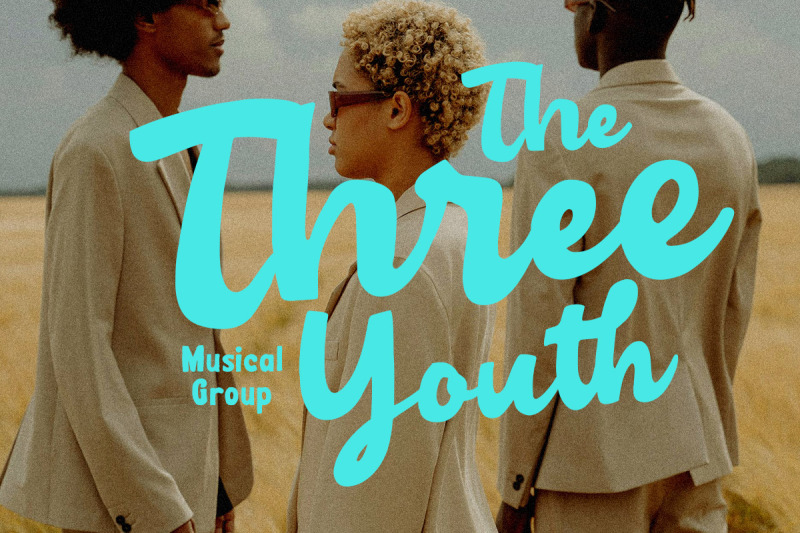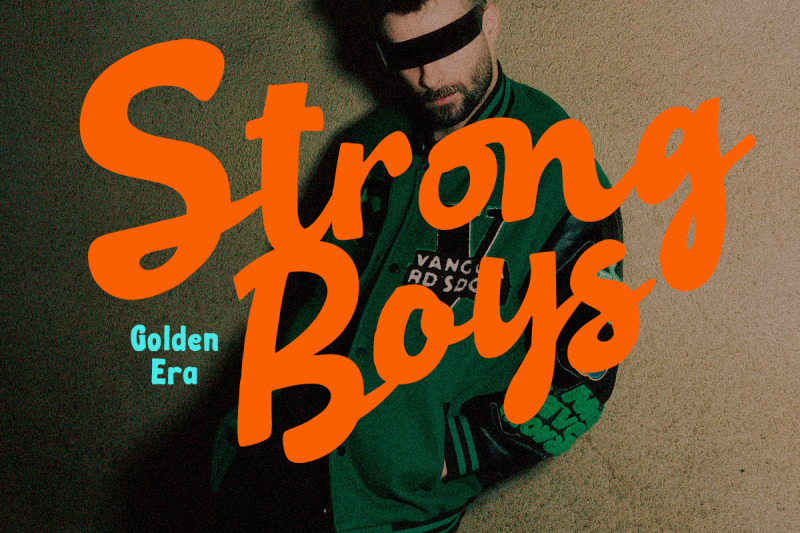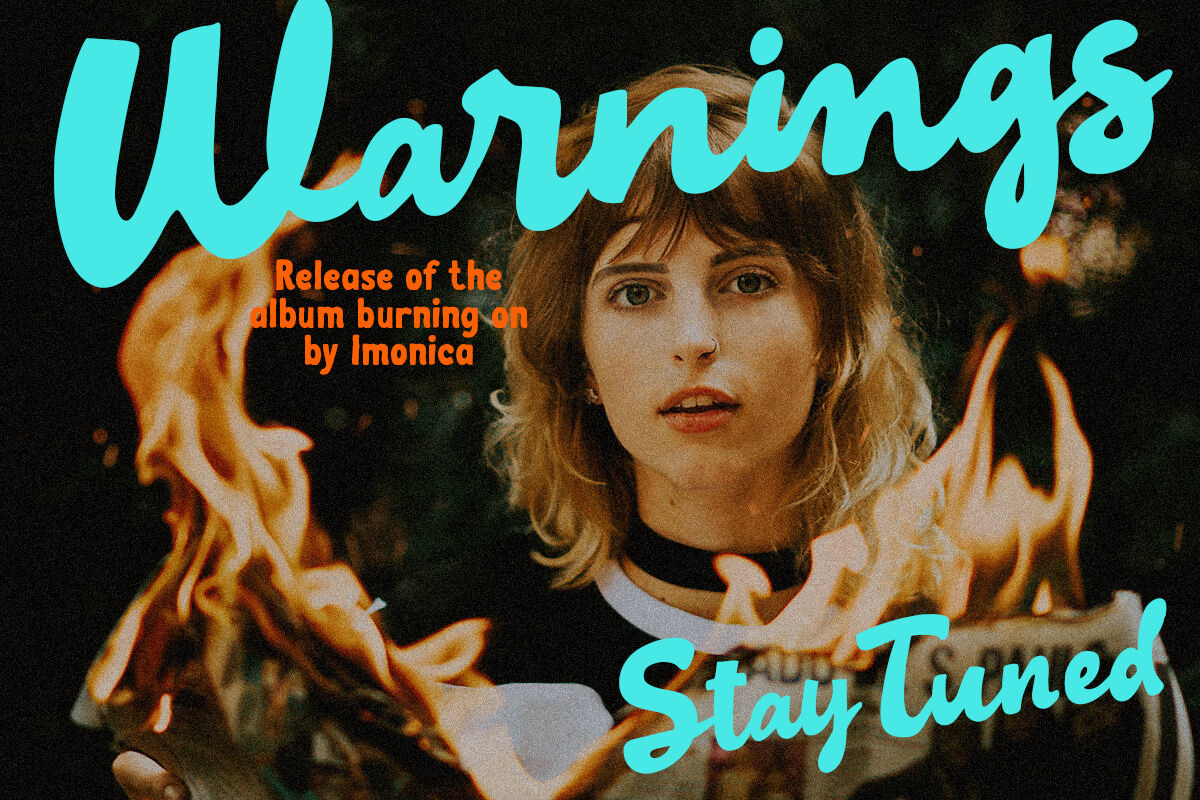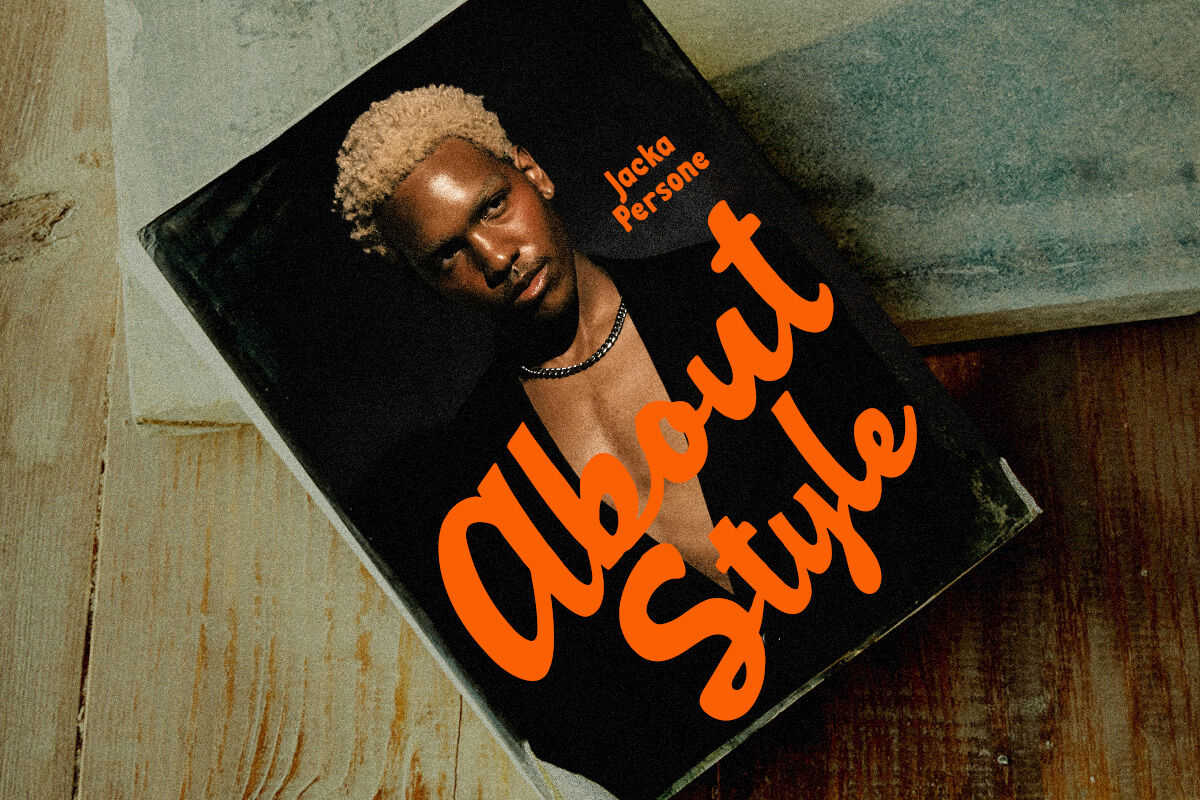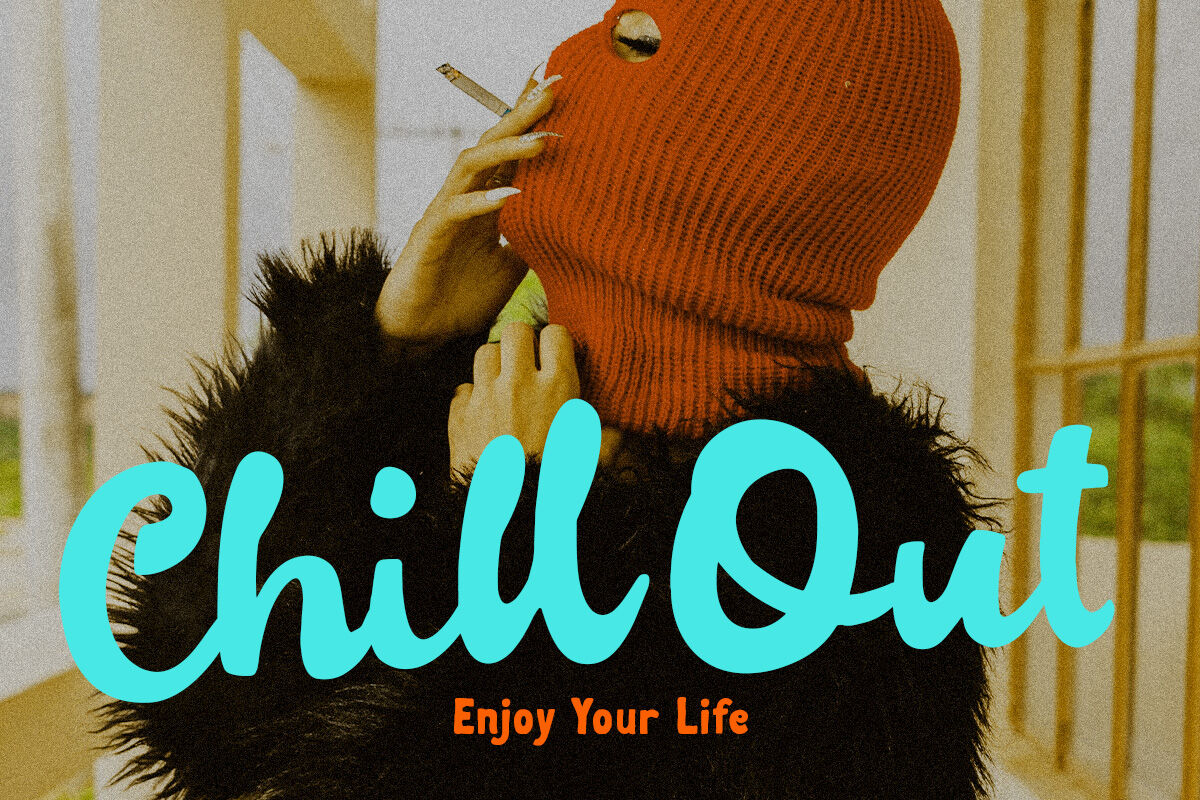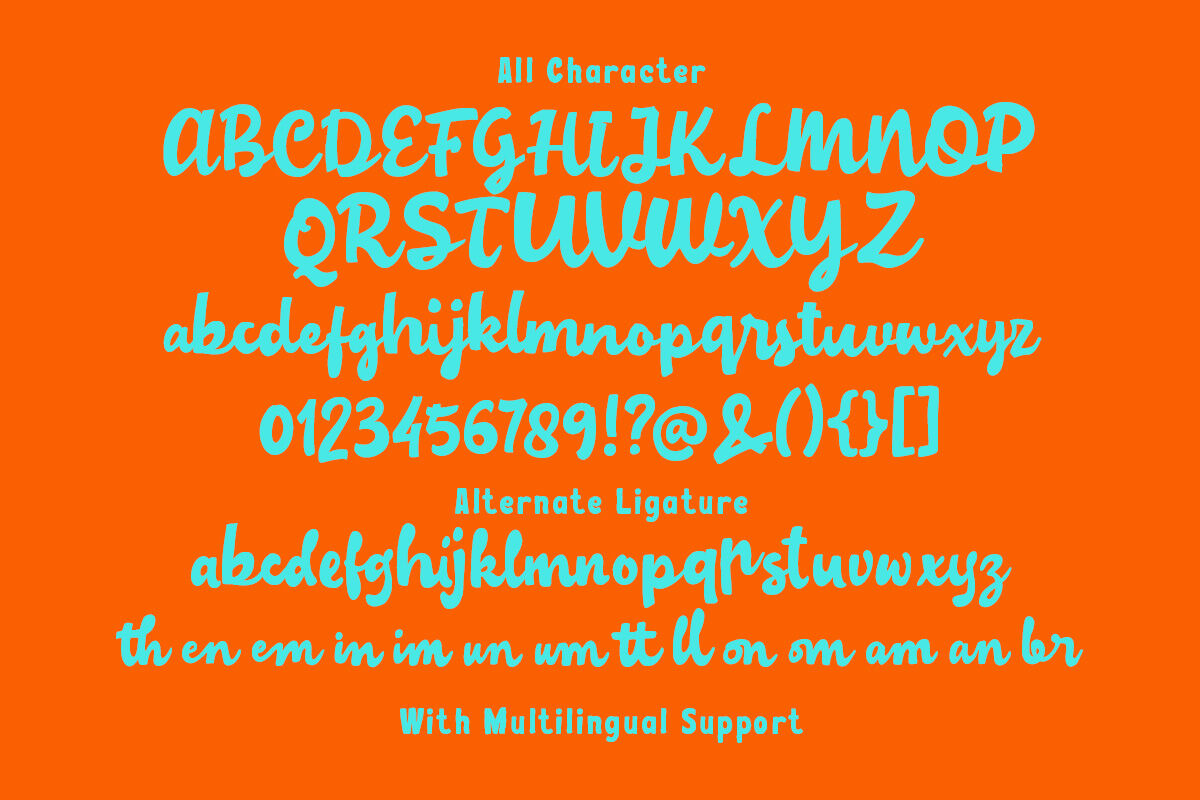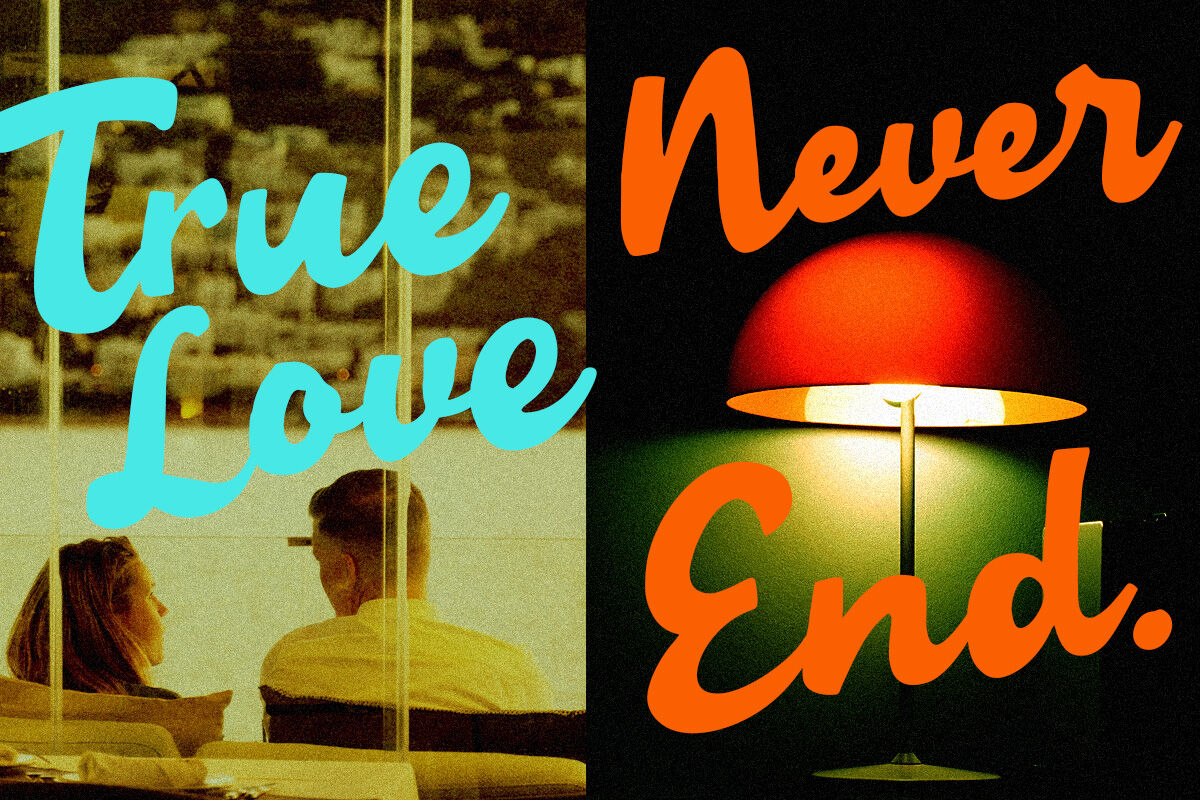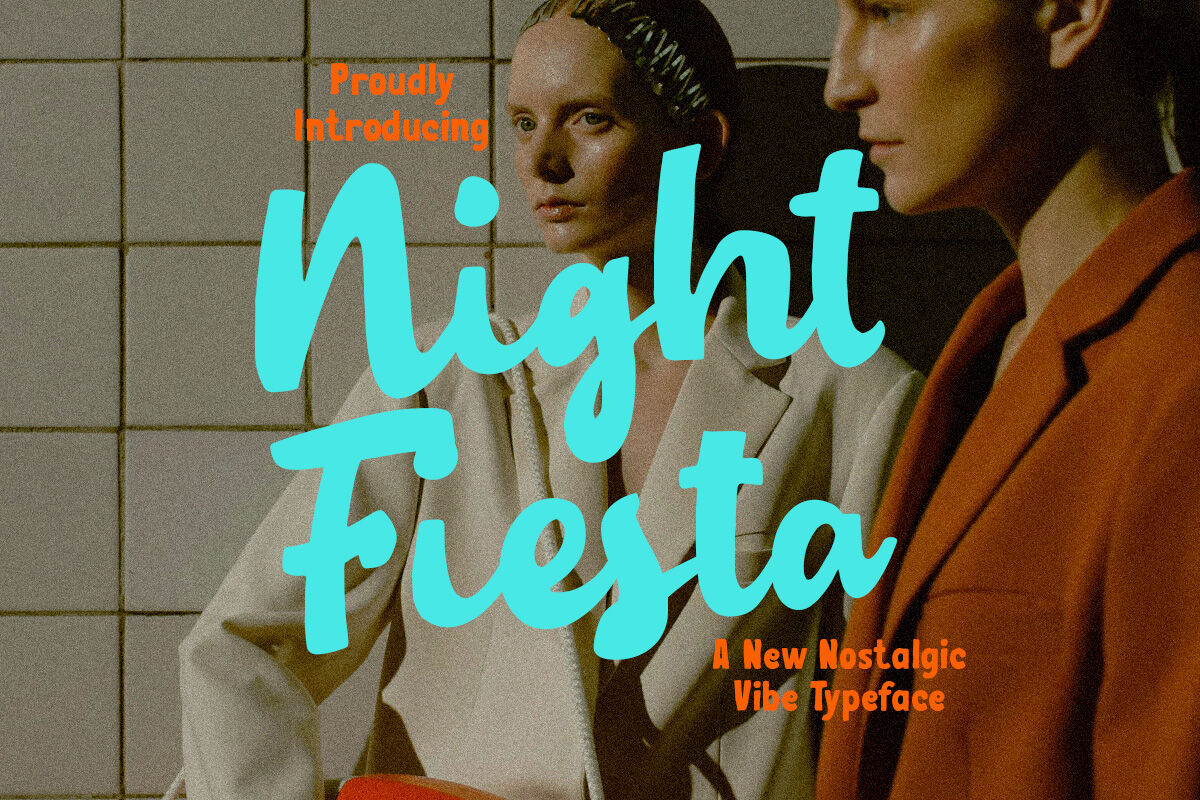
Night Fiesta is a stylish retro-inspired script font designed to bring energy and flair to any visual project. With its fluid strokes and vintage curves, it captures a nostalgic vibe while remaining clean and versatile for modern use. This typeface is perfect for branding, fashion editorials, packaging, Instagram posts, and anything that calls for bold personality and eye-catching typography.
Features :
Uppercase & lowercase
Numbers and punctuation
Alternates & Ligatures
Multilingual Support